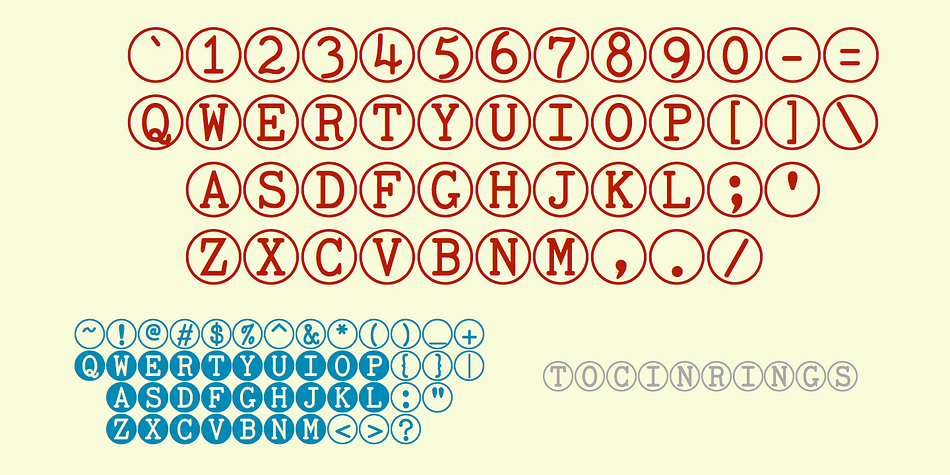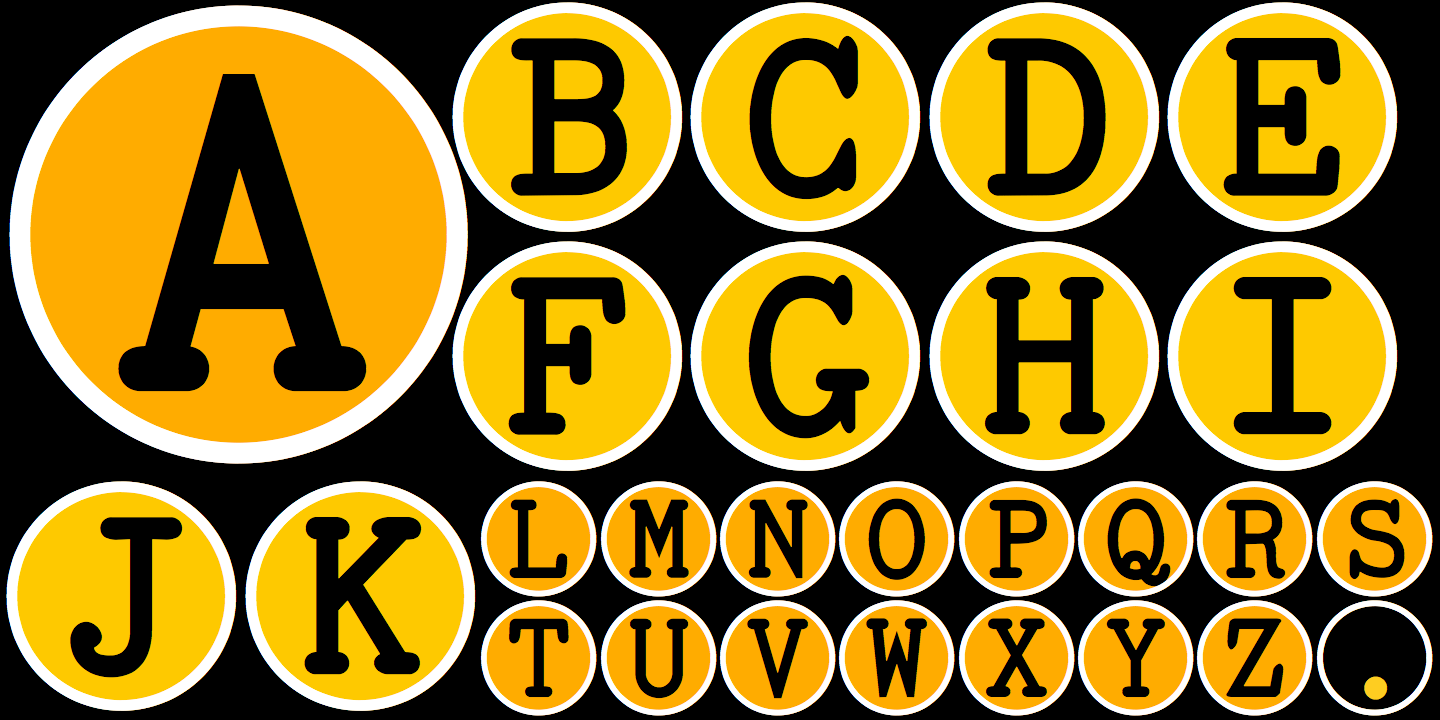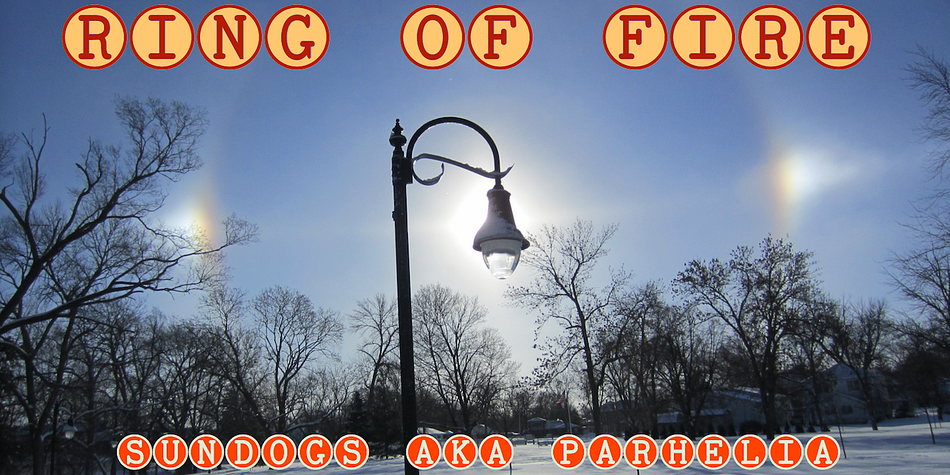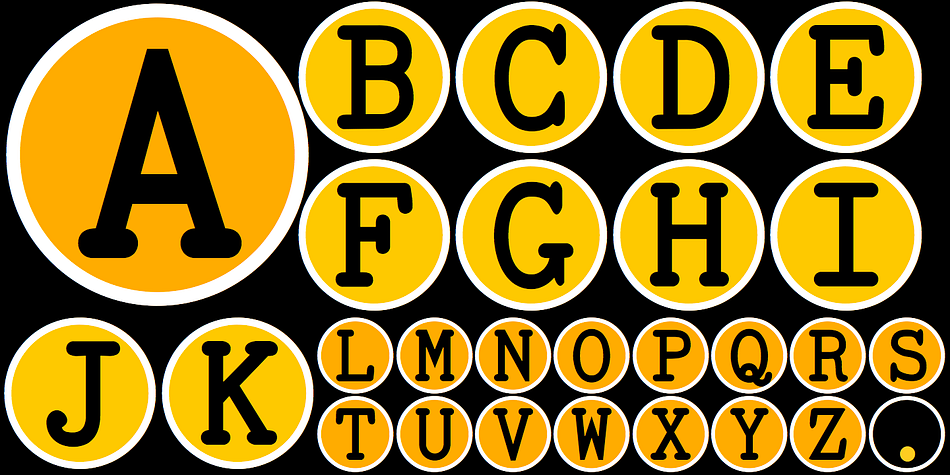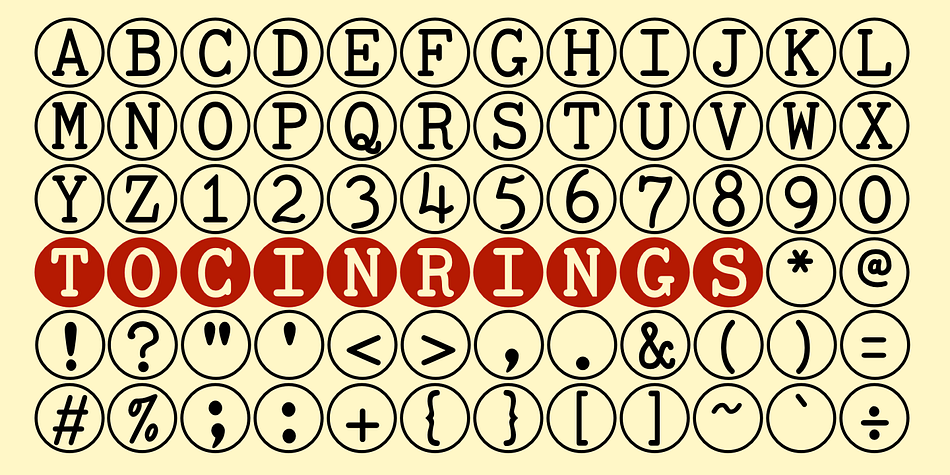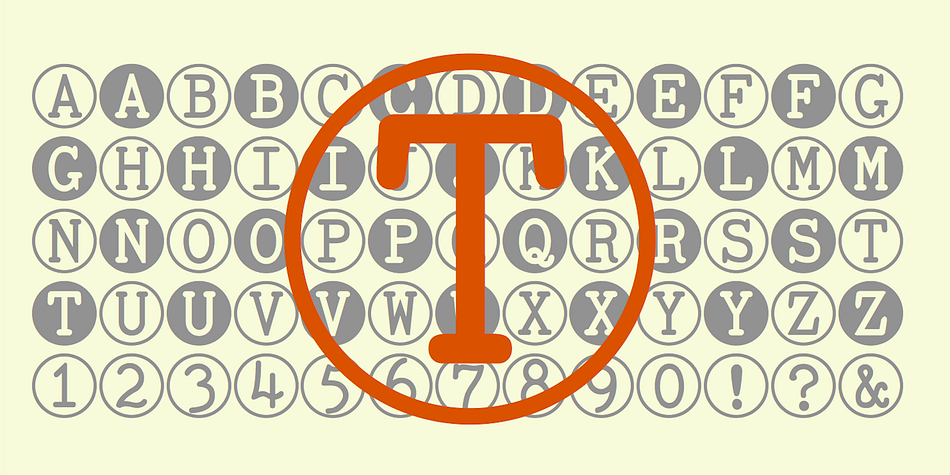
Designed by Robert Schenk, TOCinRings is a monograms, novelty and typewriter font published by Ingrimayne Type.
TOCinRings has letters in circles. The letters are from a typewriter font called TiredOfCourier.
The typeface contains characters that can add color to letters. There are two ways to do this. One uses layers and the other a combination of characters, some with zero width. A collateral pdf file explains the how this can be done.